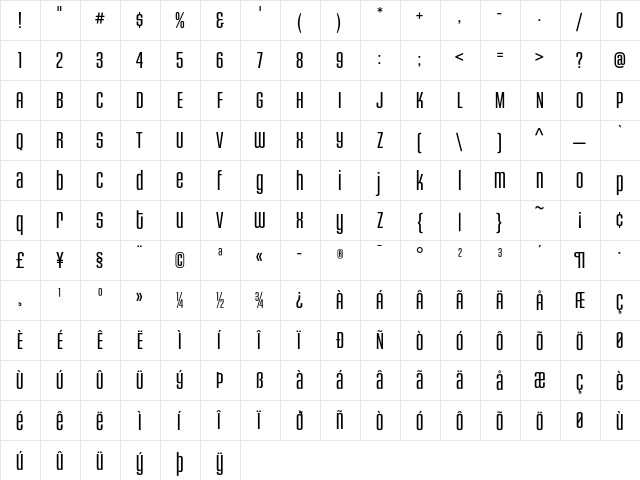
HouseGothicHG23Cond LIGHT4
| Designer | Allen Mercer/Tal Leming |
Design Context for HouseGothicHG23Cond Typeface
HouseGothicHG23Cond takes a clean, functional approach — its unadorned letterforms prioritise legibility and work reliably across screen and print environments. Its slender proportions lend an understated elegance to any composition. Its narrow stance lets it pack a punch even in space-constrained designs.
Ideal for fashion and beauty branding, minimal editorial layouts, and premium digital experiences.
Font Pairing: Pair HouseGothicHG23Cond with a medium or bold serif for headlines — the weight contrast creates an elegant, high-end feel.
Pro Tip: Try HouseGothicHG23Cond in all-caps with moderate tracking for navigation and label copy — it performs well in systematic UI contexts.